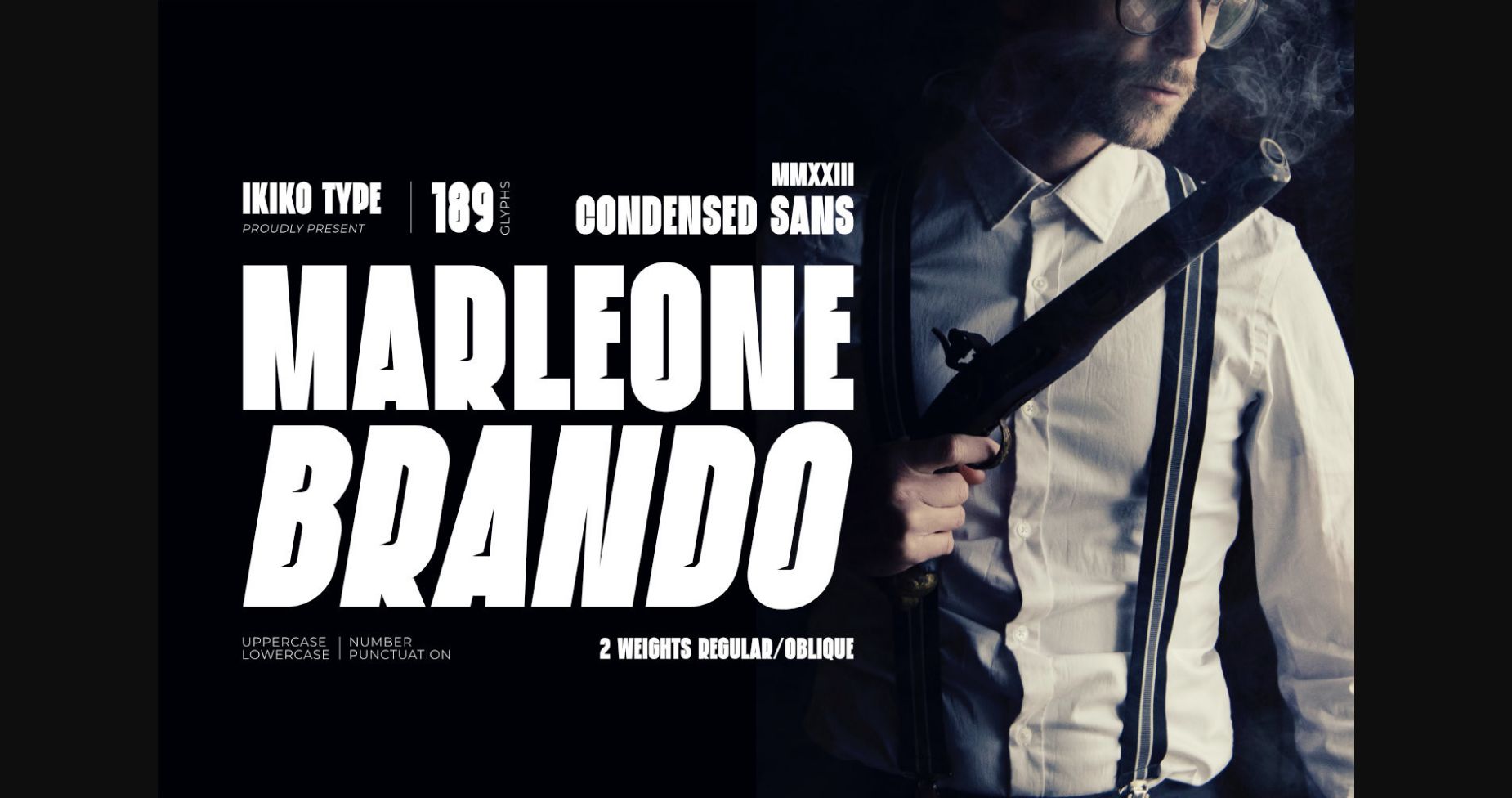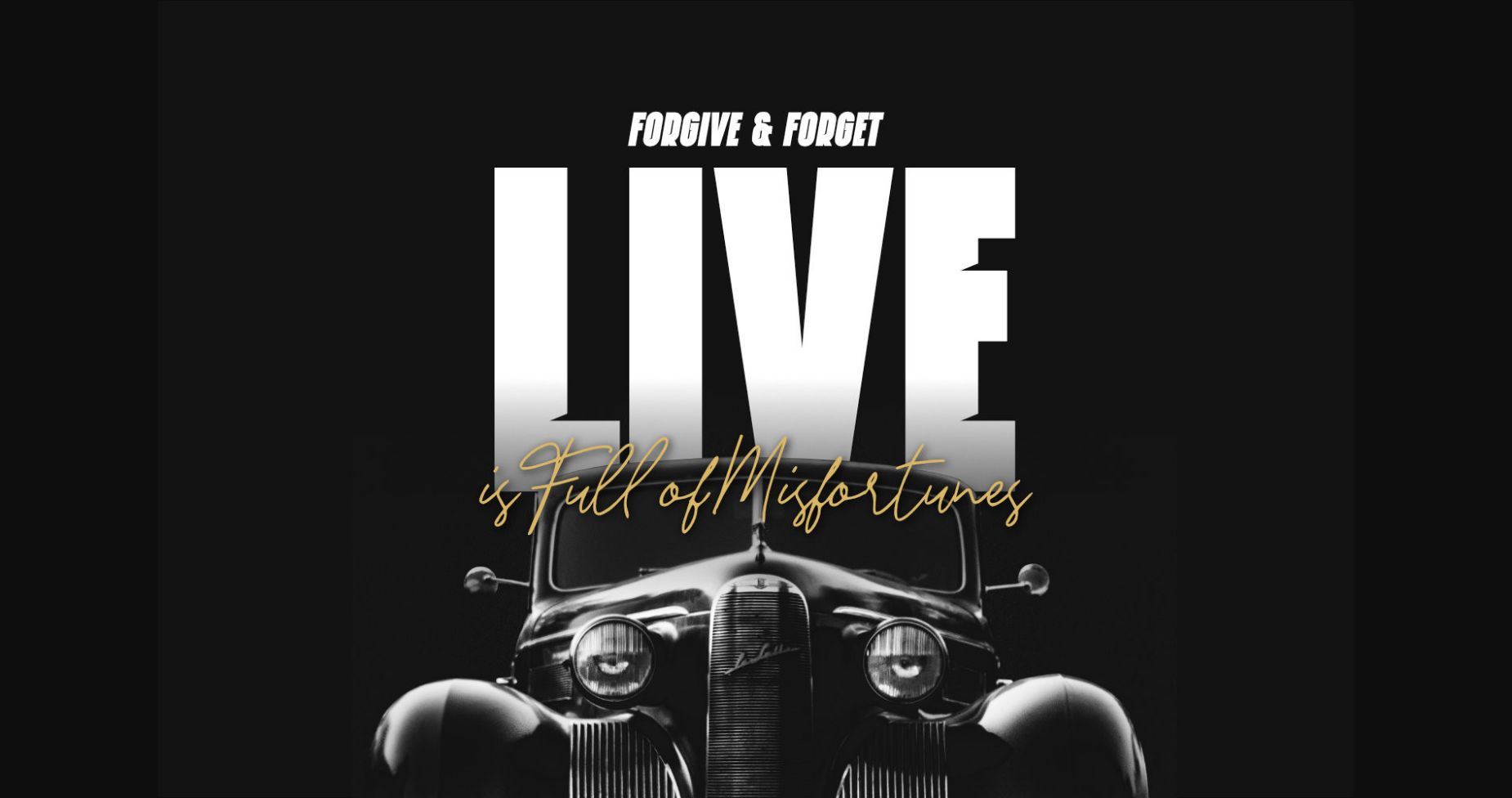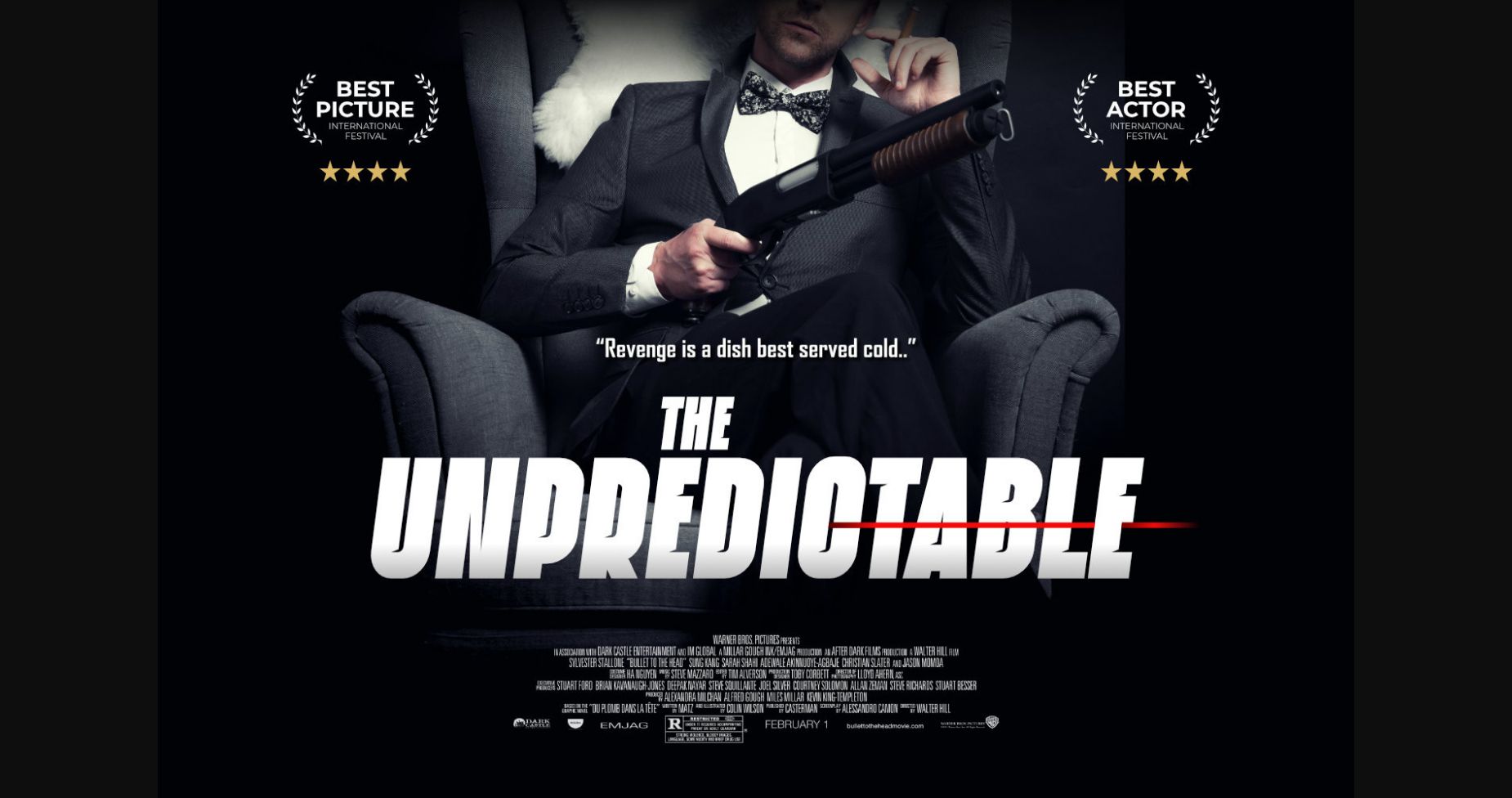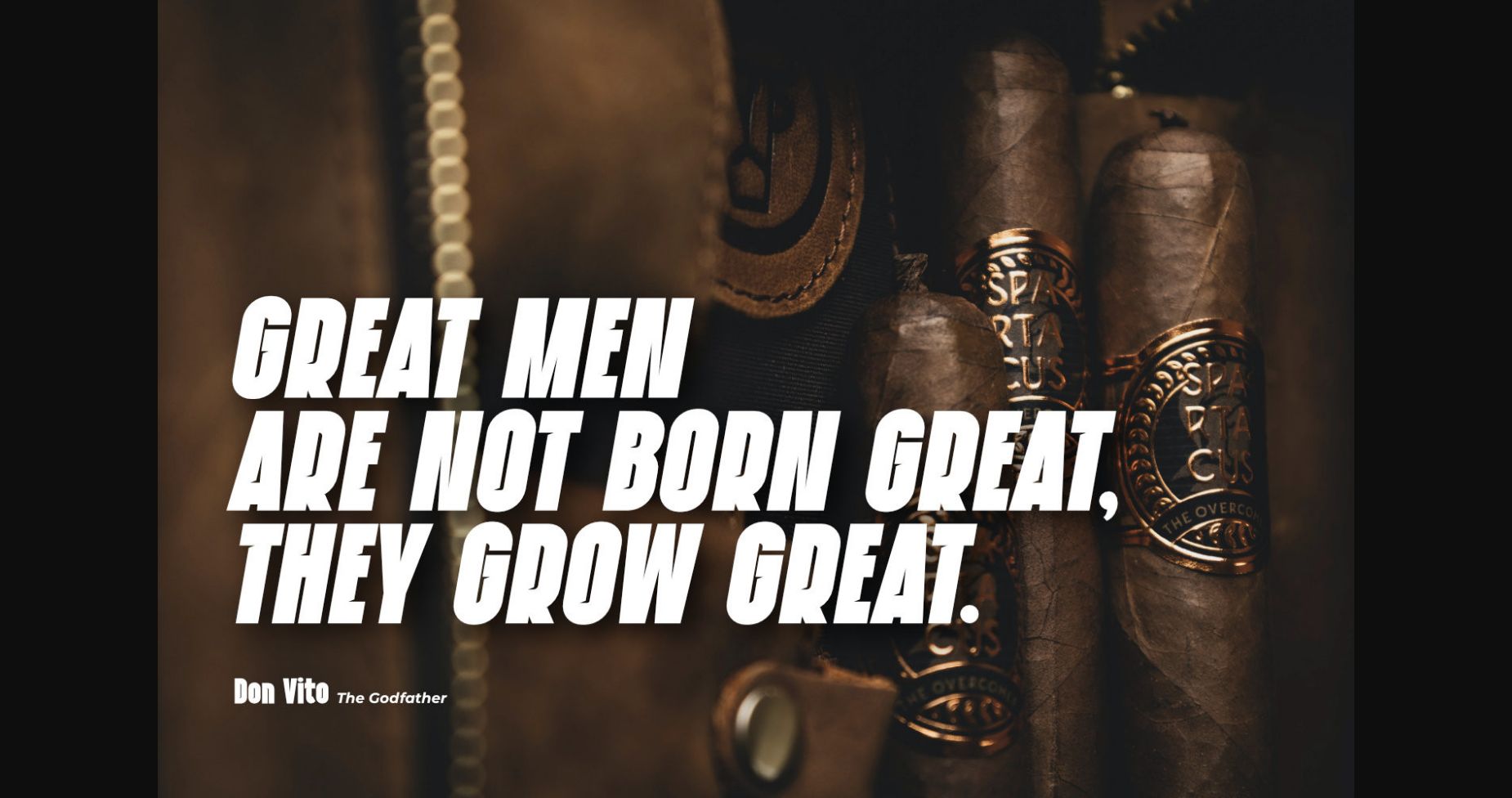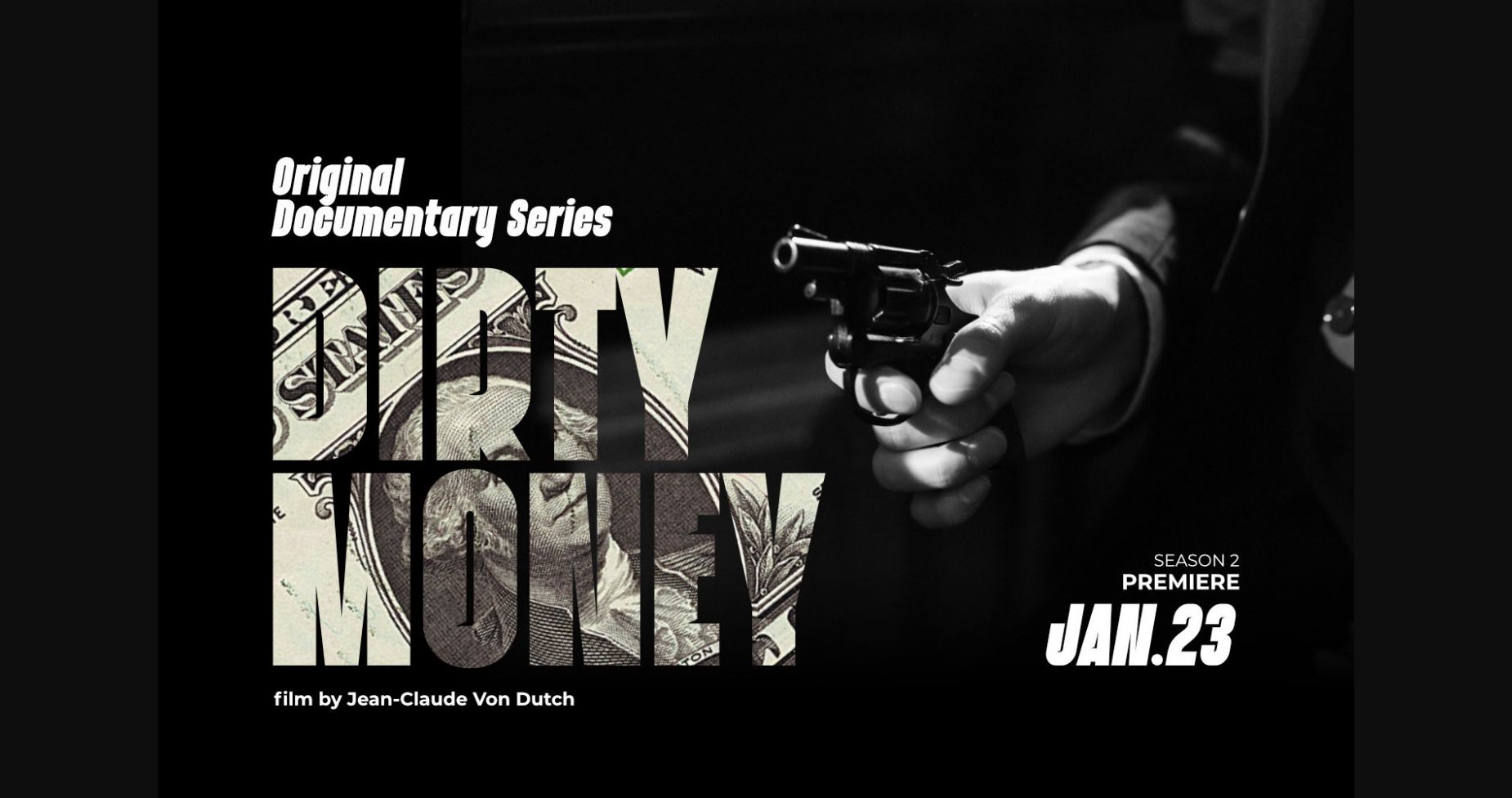
About Marleone Brando Font
Marleone Brando is a bold-sturdy font with strong character, inspired by the typeface in mafia films. Marleone Brando is a simple font with a bold size with shadow lines inside, making this font look elegant and classy. This typeface is perfect for an elegant logo, branding, movie poster, layout magazine, sportswear, packaging product, quotes, or simply as a stylish text overlay to any background image.